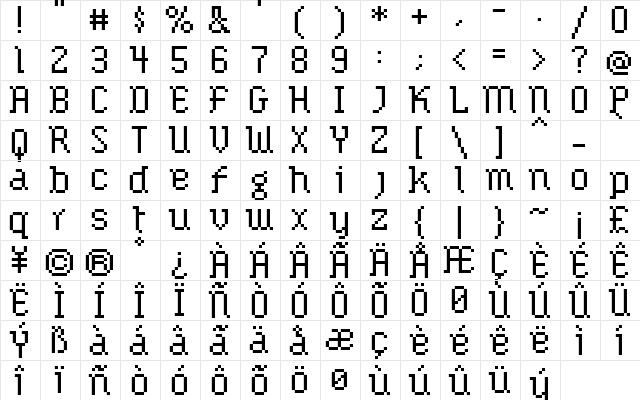
Lemoine Extended Regular
Design Context for Lemoine Extended Typeface
Lemoine Extended is a composed and adaptable typeface that performs quietly and consistently across a wide range of design contexts.